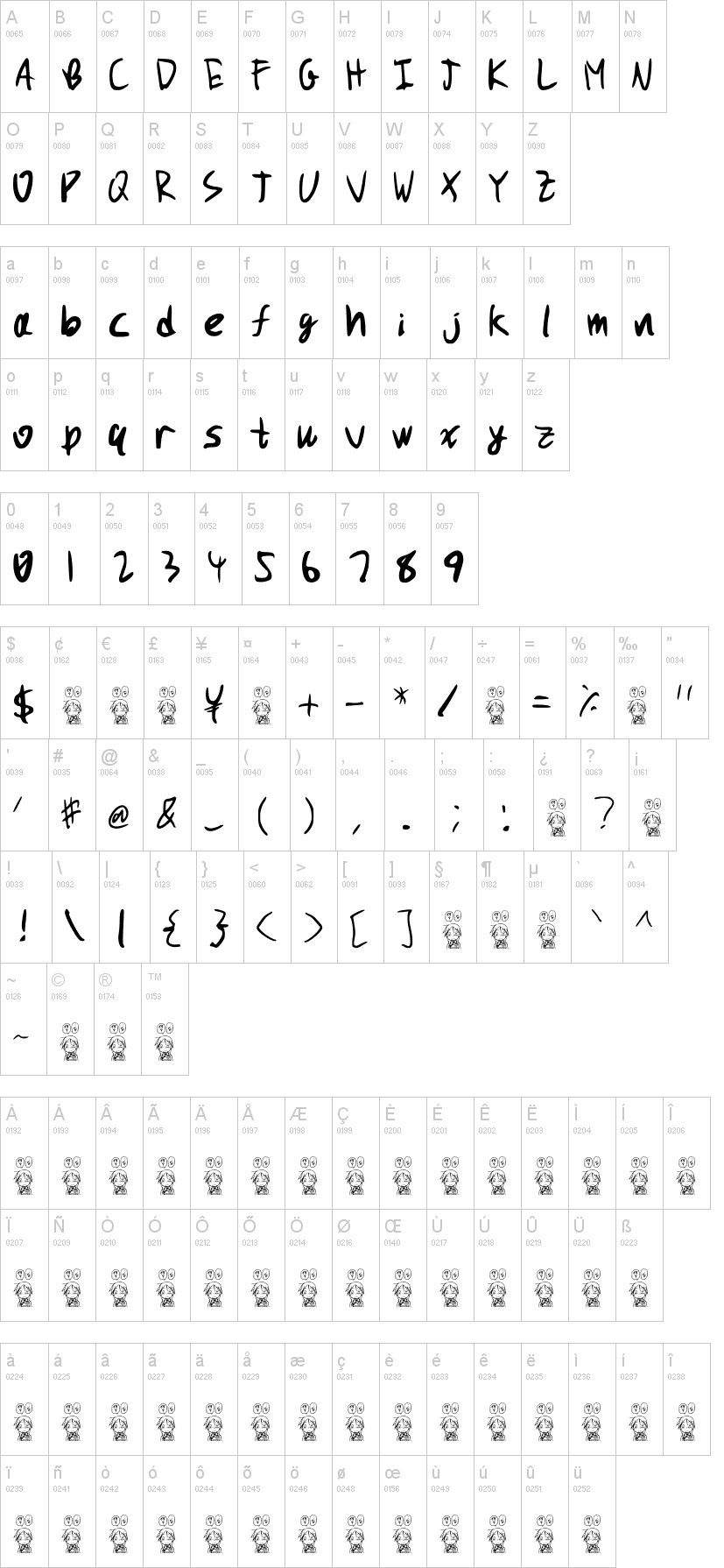
Note of the authorPuchiMono is a handwritten coding font that emphasizes readability and style. No other font can compare.
Update:
-missing glpyph graphic added
-semicolon adjusted so that upper dot shows more consistently
-right angle bracket adjusted